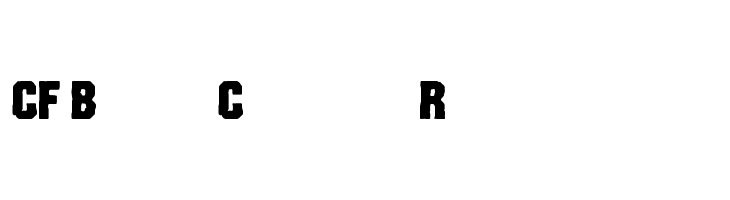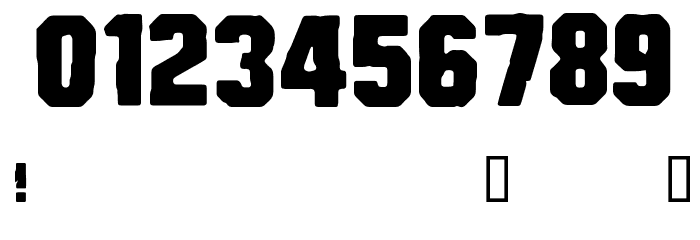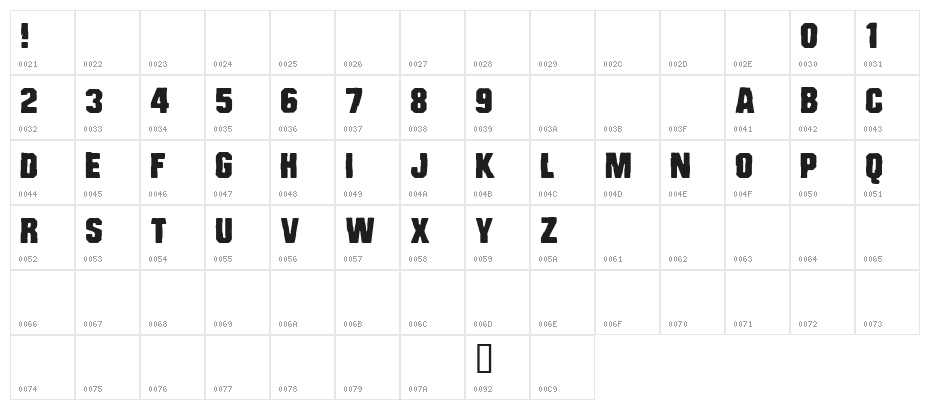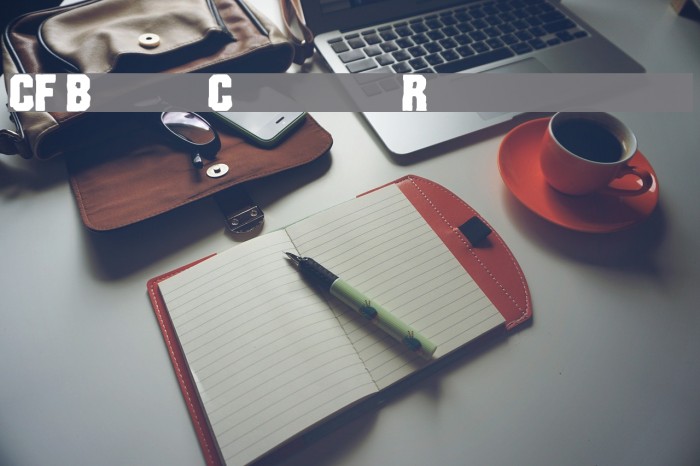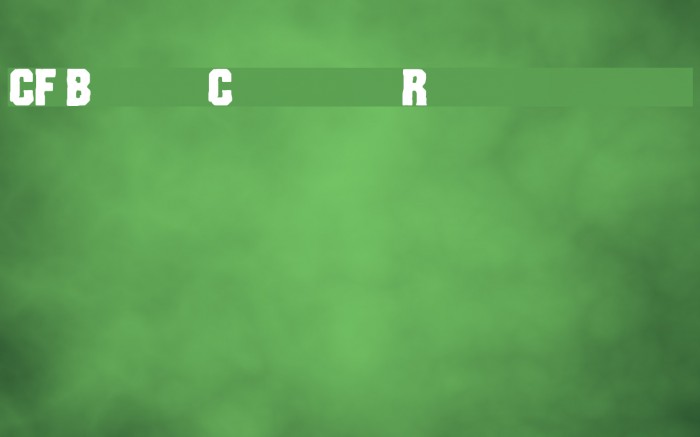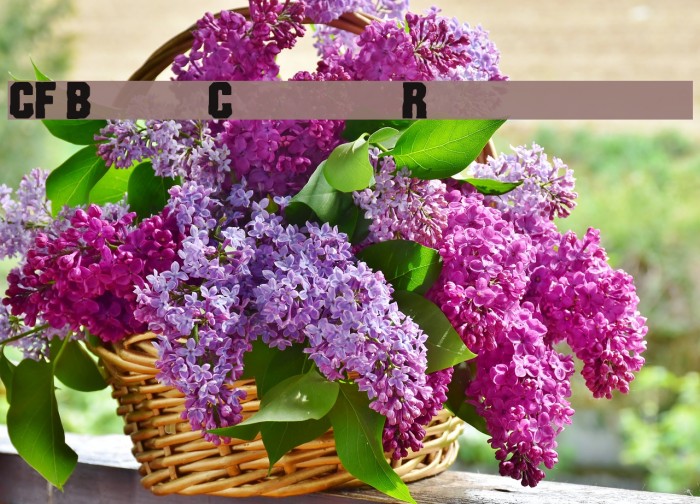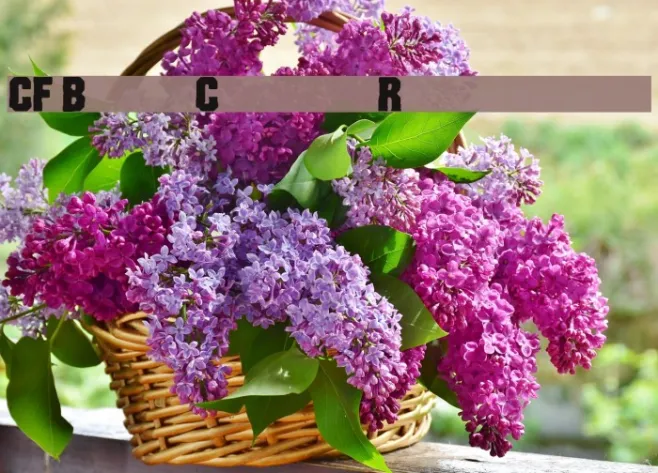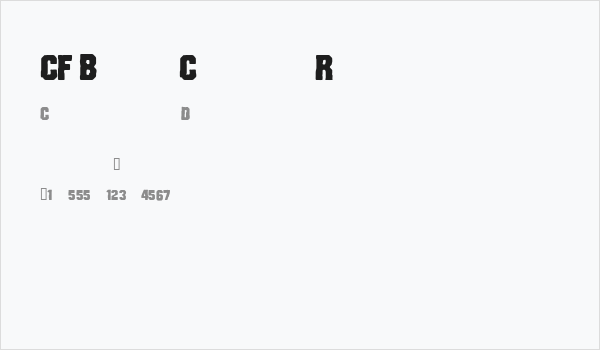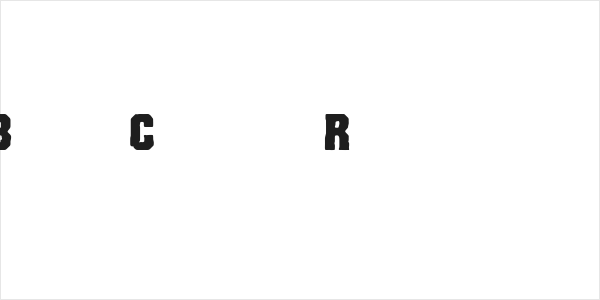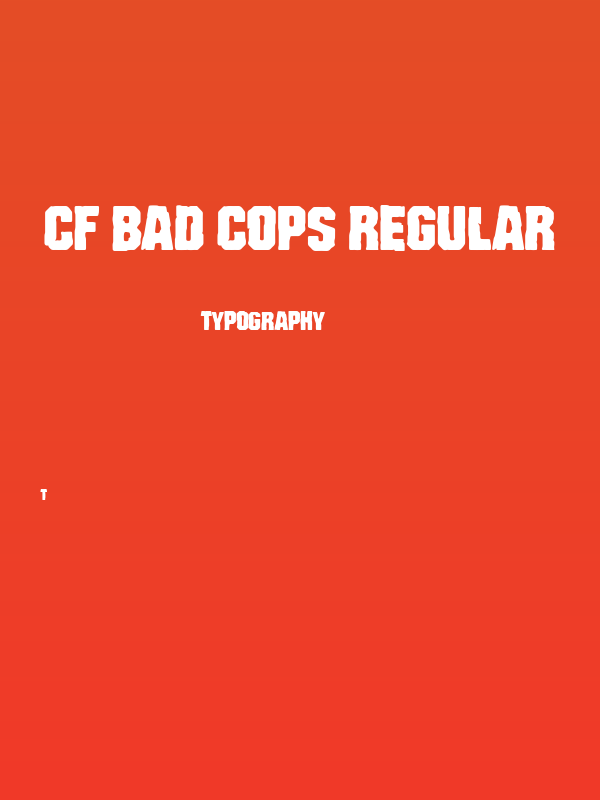
CF Bad Cops Regular Font
CF Bad Cops Regular Description
This font features a bold, rugged design with a strong presence. The characters are blocky and have a distressed, textured appearance, giving them a gritty and impactful look. The uppercase letters are uniform in height, while the numbers share the same boldness and texture. The font lacks lowercase letters, focusing on a powerful uppercase display. The style is reminiscent of stencil or military-inspired designs, making it suitable for projects that require a tough, industrial aesthetic. The spacing between characters is tight, enhancing its compact and robust feel.
Overall StyleIndustrial, Rugged
Proposed ProjectsIdeal for posters, logos, and branding projects that require a strong, industrial aesthetic.